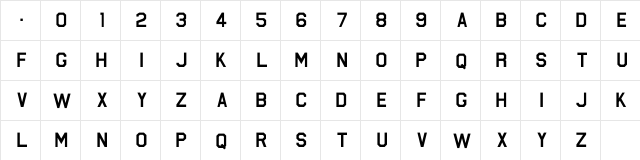
Federation Starfleet Hull 23rd Regular
Design Context for Federation Starfleet Hull 23rd Typeface
Federation Starfleet Hull 23rd takes a measured approach to typography — its balanced proportions and neutral character make it a reliable workhorse for both digital and print work.
Pro Tip: Use Federation Starfleet Hull 23rd in both headline and body roles to test its range before committing to a single application.